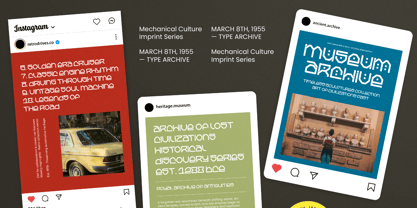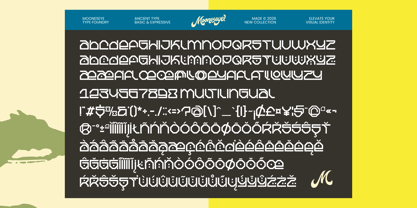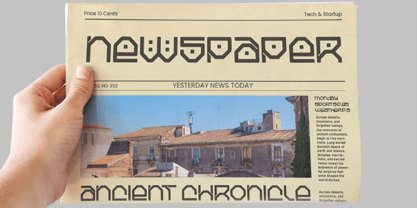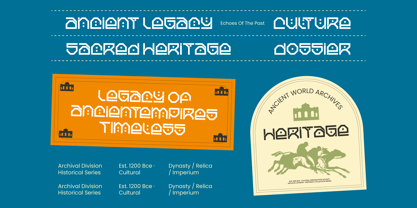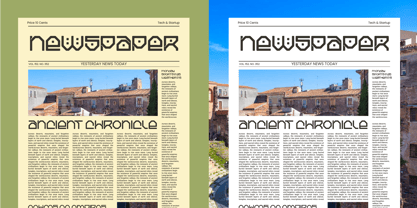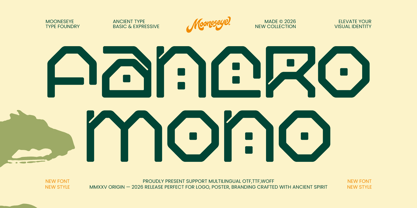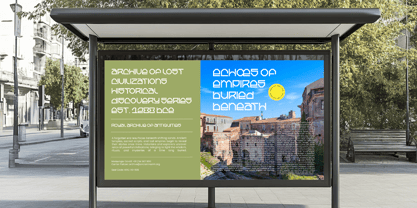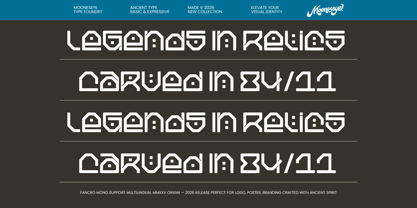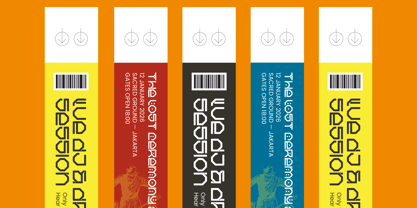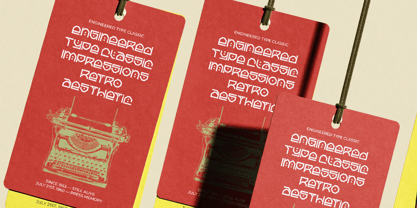
Fancro Mono
by Mooneseye Studio
The Fancro Mono Font Family was designed by Elhaq Farid and published by Mooneseye Studio. Fancro Mono contains 2 styles and family package options. More about this family
Fancro Mono is a beautiful paradox—an experimental monospaced display font built with the soul of an ancient monument. Its rigid, blocky architecture utilizes clean, structural planes and sharp, giving every letter an immediate sense of weight and visual permanence. Look closely, and you will see characters shaped like structural icons or ancient dwellings, complete with unique internal dot accents that mimic mysterious hieroglyphs or runic markings.
Don't let its monolithic weight fool you. As a high-value hybrid typeface, Fancro Mono holds up beautifully in dense paragraphs, bringing a striking, editorial texture to small-scale body text. It is built to stand out on lifestyle newspaper covers, artisanal clothing tags, cultural exhibit signs, and raw festival passes. Whether you are aiming for a classic museum archive look or a modern brutalist layout, Fancro Mono turns simple words into instant works of art.